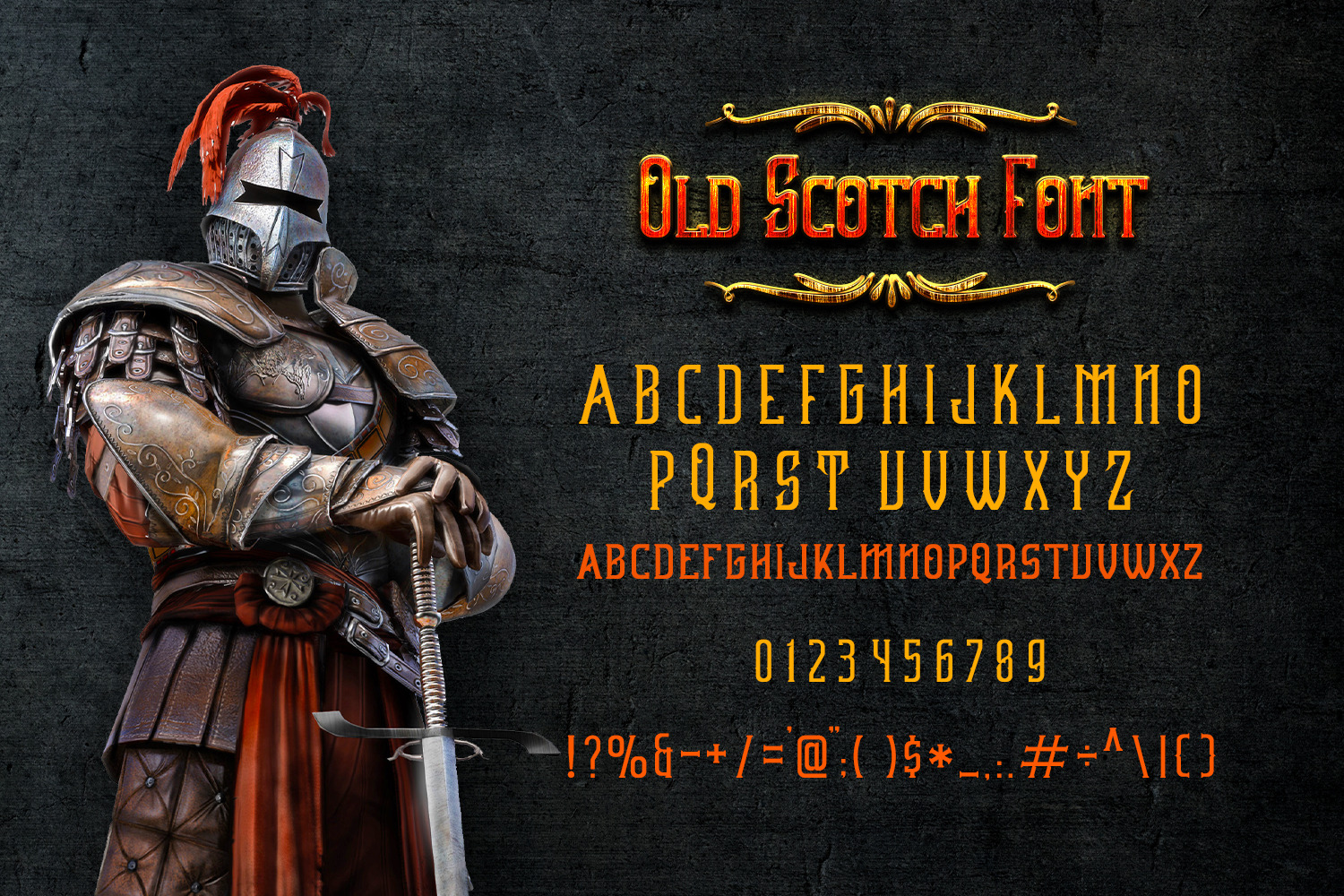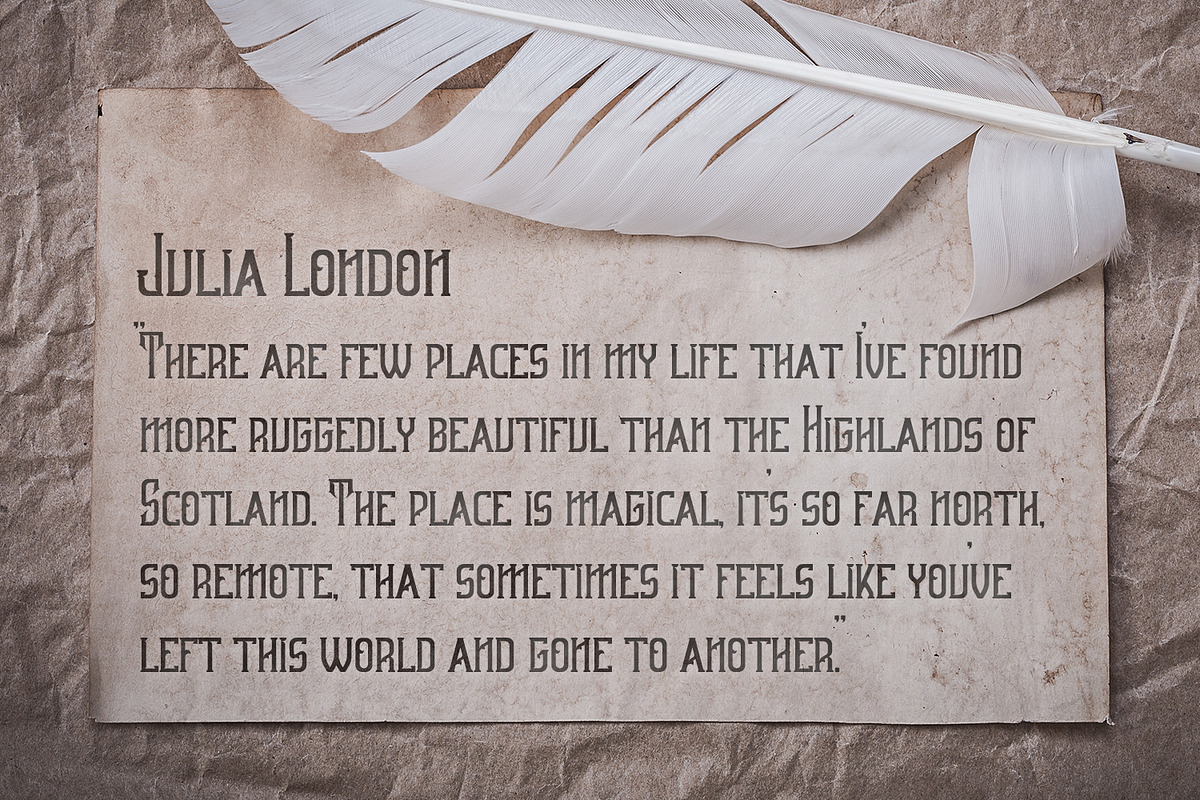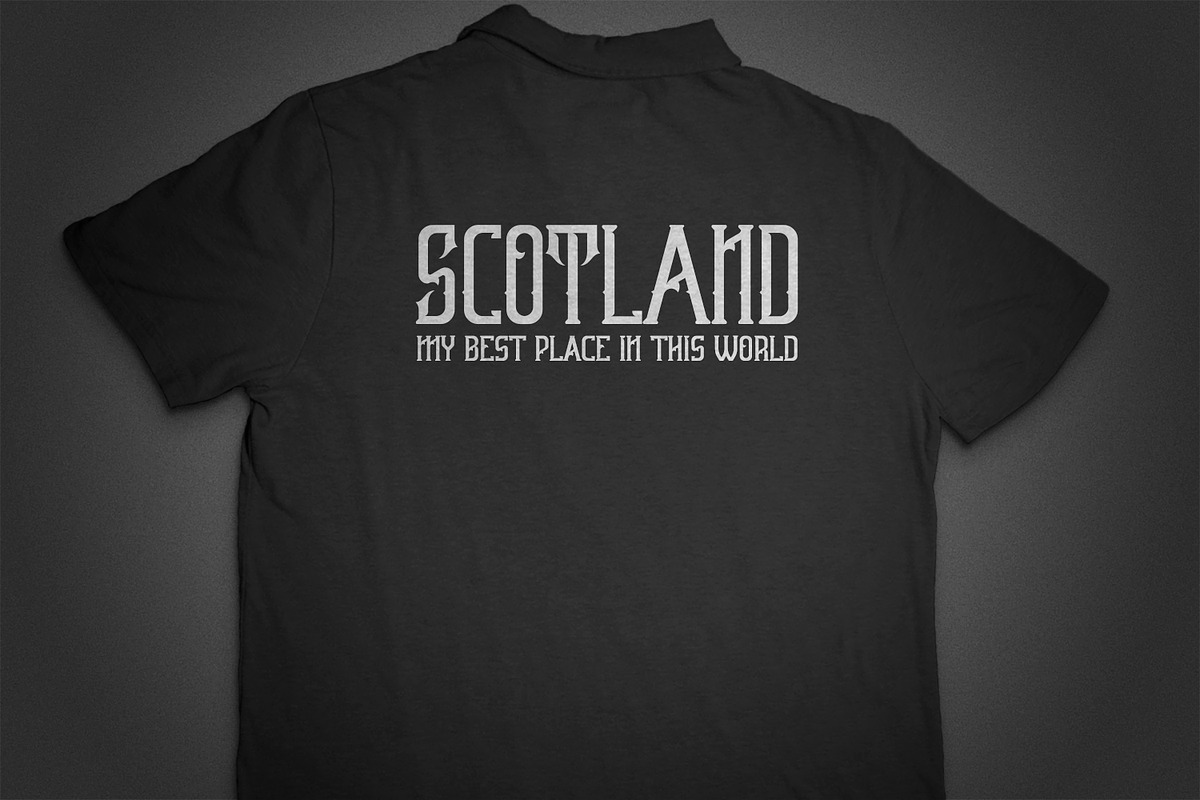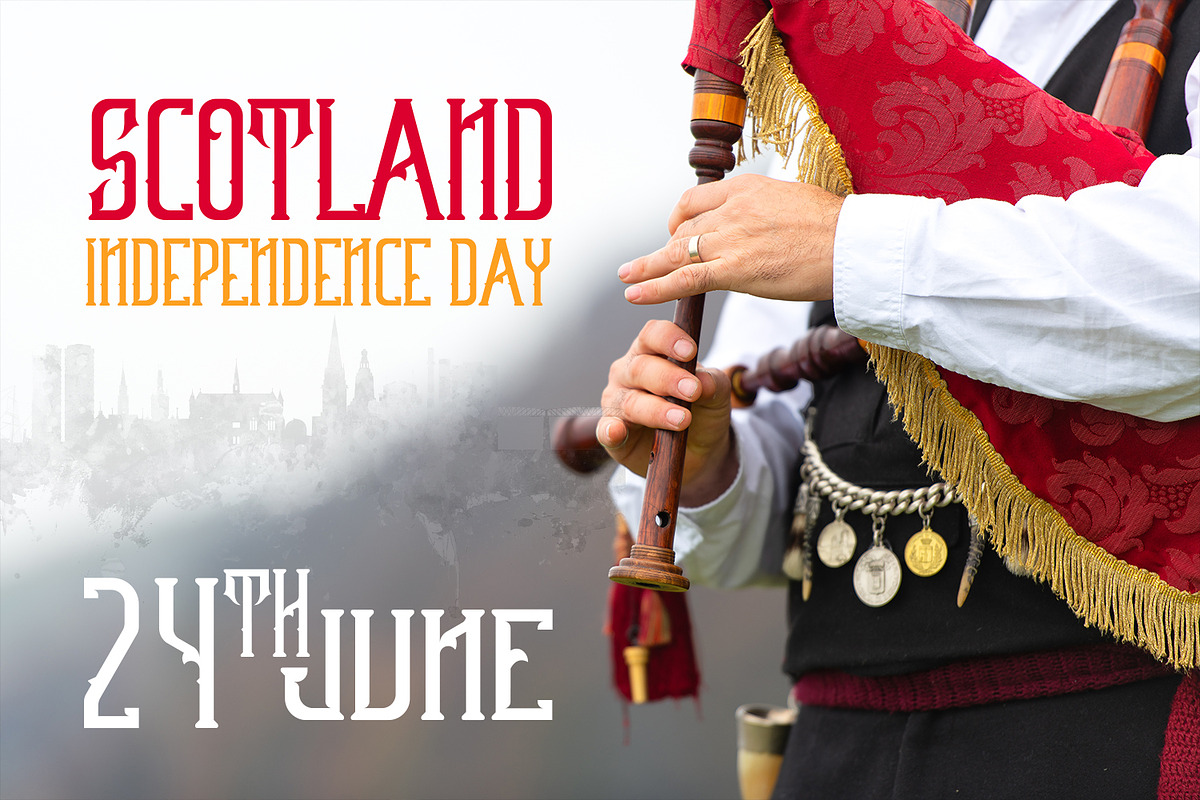
Old Scotch Font
Old Scotch is a bold and authentic blackletter font. Add this font to your favorite creative ideas and notice how it makes them come alive!